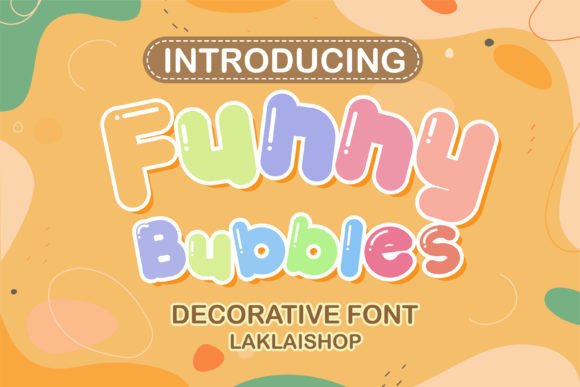
Dive into a whimsical world of laughter and delight with Funny Bubbles Font, the most amusing decorative font that sparks joy and effervescent charm into your creative endeavors! Crafted with meticulous attention to detail by LAKLAIShop, this font is an artistic masterpiece that transforms your designs into vibrant spectacles of merriments.
With its playful curves and cheerful demeanor, Funny Bubbles Font holds the power to add an instant splash of happiness to any project you undertake. Its bouncy, bubbly characters leap off the page, captivating your audience with their infectious energy and irresistible allure. Whether you're designing eye-catching covers, whimsical posters, or crafty DIY projects that ignite imaginations, Funny Bubbles Font is your ultimate companion.
Visualize your designs bursting with exuberance, radiating positivity, and spreading smiles like confetti on a joyous celebration. Funny Bubbles Font is the secret ingredient that elevates your creations beyond mere aesthetics, infusing them with an infectious sense of playfulness that captivates hearts and ignites imaginations.
Embrace the transformative power of Funny Bubbles Font and watch as your designs evolve into vibrant expressions of joy and cheerfulness. Unleash your creativity and embark on a journey filled with laughter, delight, and an endless stream of creative possibilities. Immerse yourself in the whimsical world of Funny Bubbles Font, where every character dances with delight, carrying your message with infectious enthusiasm.